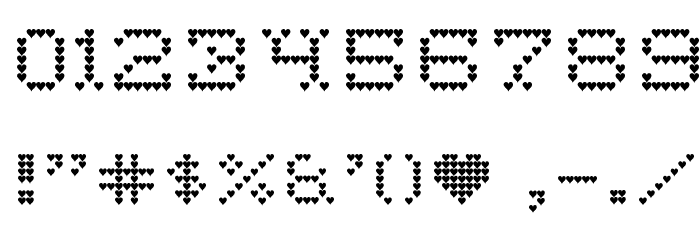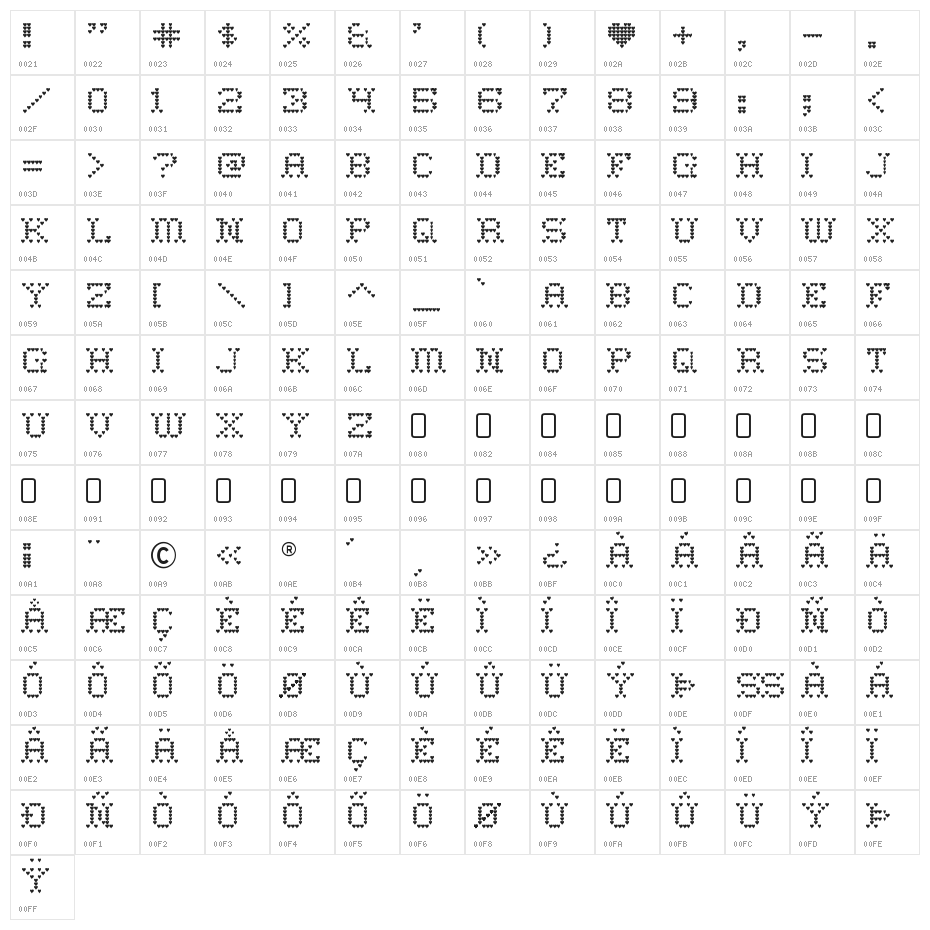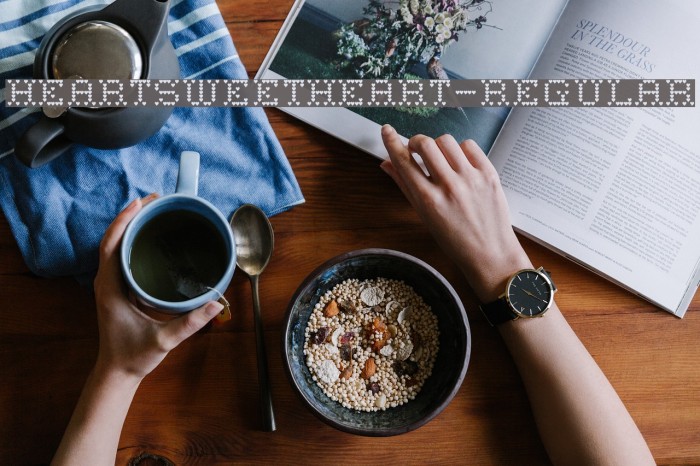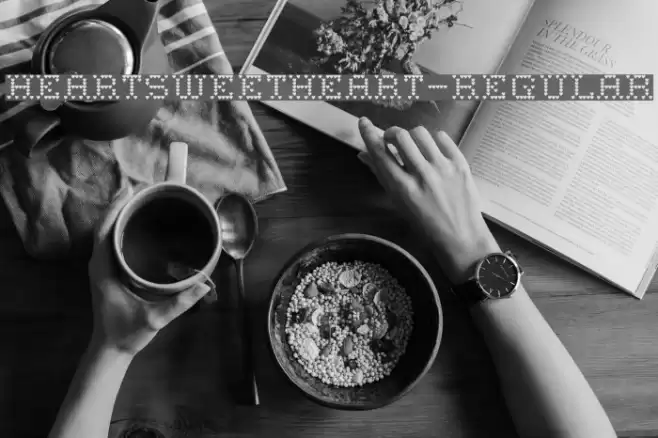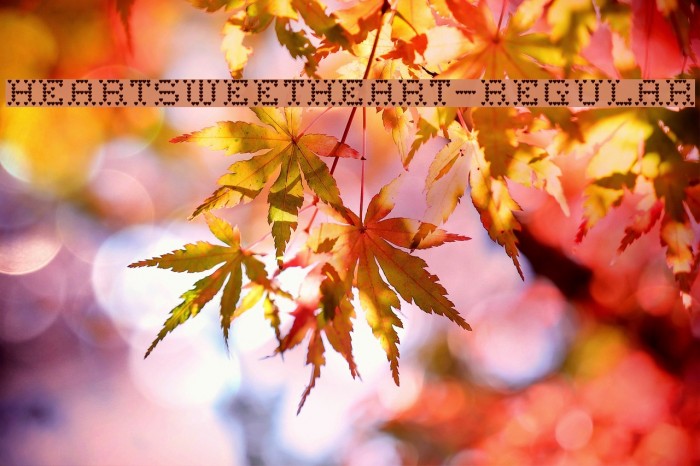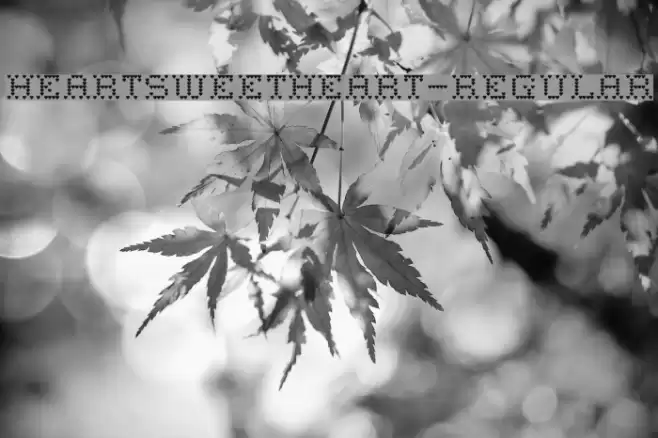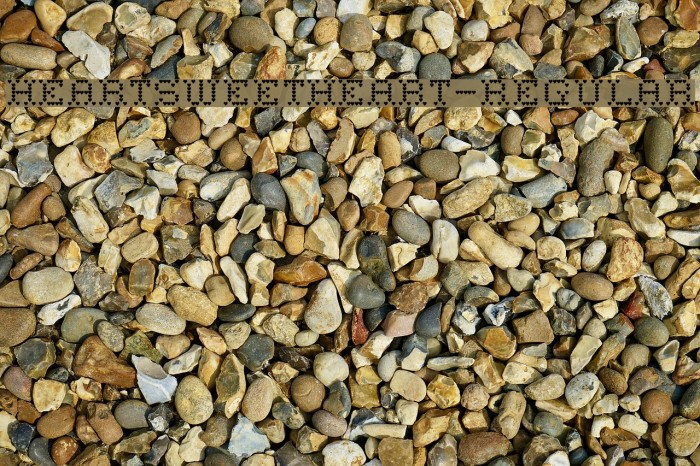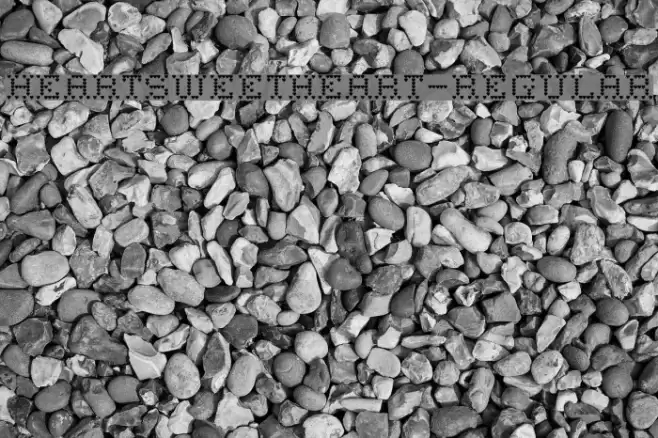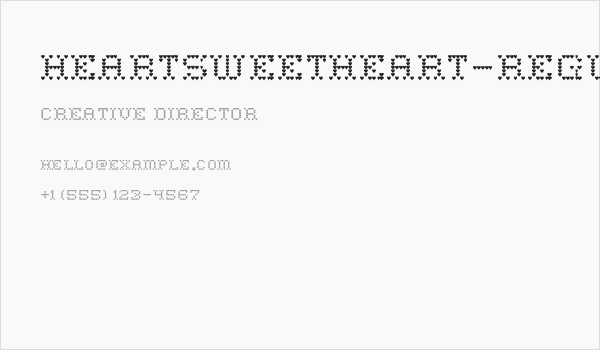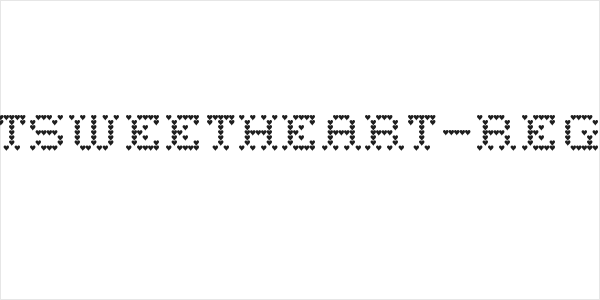
HeartSweetHeart-Regular Font
HeartSweetHeart-Regular Description
This font features a unique and playful design where each character is composed of small heart shapes, creating a dotted outline effect. The uppercase and lowercase letters, as well as numbers and special characters, maintain a consistent pattern, making it visually cohesive. The heart motif adds a whimsical and romantic touch, making it ideal for projects that require a fun and affectionate aesthetic. The characters are evenly spaced, ensuring readability while maintaining the decorative style. The font's distinct appearance makes it suitable for creative and informal applications.
| Proposed Projects | Ideal for Valentine's Day cards, wedding invitations, love-themed posters, and playful branding projects. |